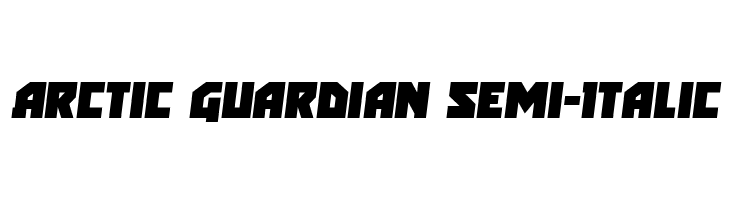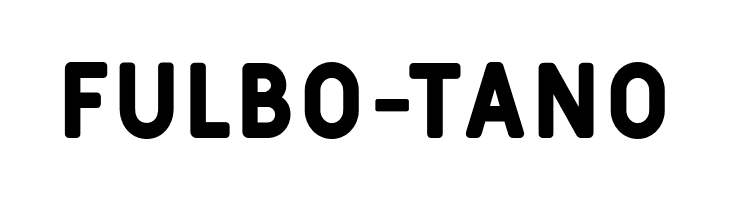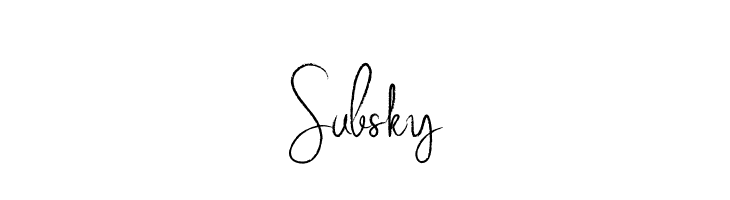
A playful, handwritten script font with a whimsical and dynamic style.
A playful, hand-drawn font with bold, rounded characters and a whimsical style.
A bold, brushstroke font with a rebellious, artistic flair.
A bold, wide, semi-italic font with a geometric and modern style.
A bold, modern font with clean, geometric lines and slightly rounded characters.
A graceful script font with fluid, cursive strokes and elegant loops.
A playful, handwritten script font with dynamic, cursive strokes.
A futuristic and geometric font with sharp angles and dynamic curves.
A bold, handwritten font with playful brush-like strokes.
A bold, italicized font with a modern and dynamic style.